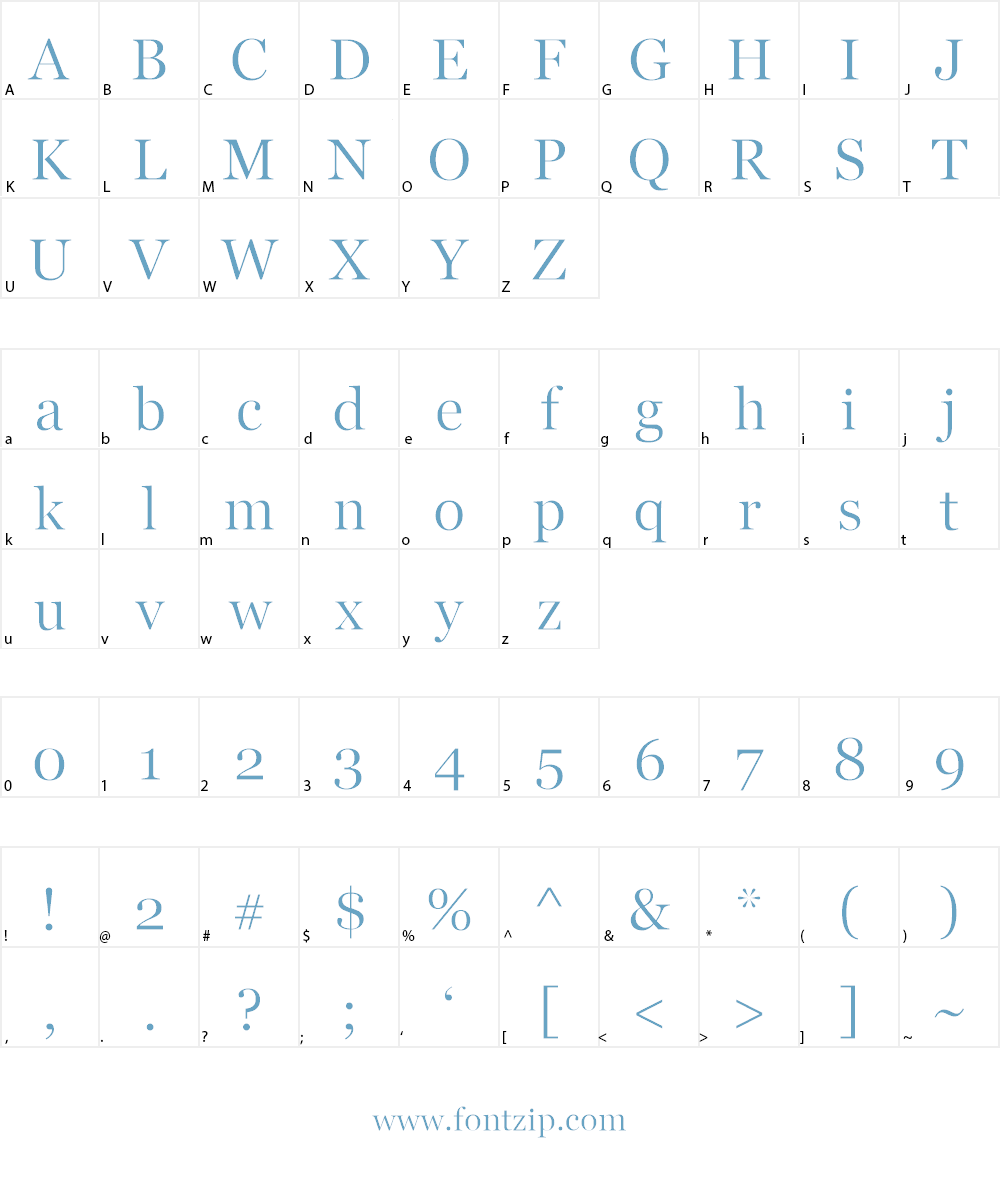
Where the original, award-winning Georgia typeface by Matthew Carter was made specifically for screen reading, SD Georgia Light was designed with books and magazines in mind.
Specially tweaked for high-density web and offset printing compensating for optical ink spread and dot gain, SD Georgia Light accentuates influences from Clarendon-style typefaces which is most prevalent when looking at it's matching italic partner.